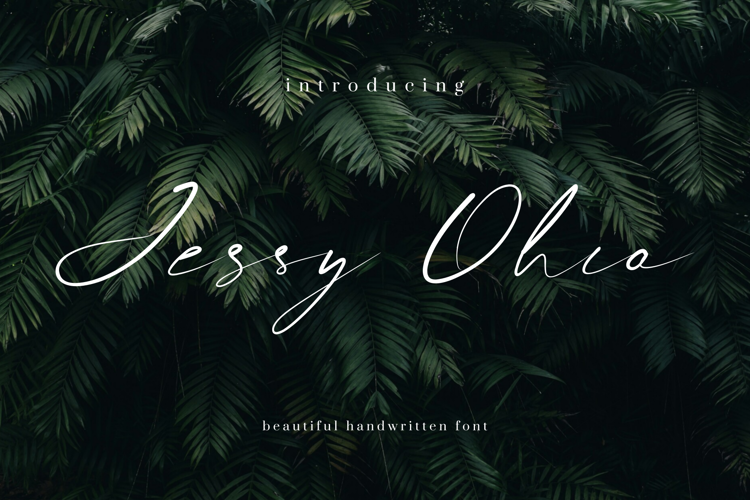
Jessy Ohio Font
Ohio Style
Jessy Ohio is a lovely and timeless handwritten font.
It is the best choice for creating eye catching logos, branding, invitation, postcard, quotes and many more.
Every letter has a unique and beautiful touch, which will make your design come alive!